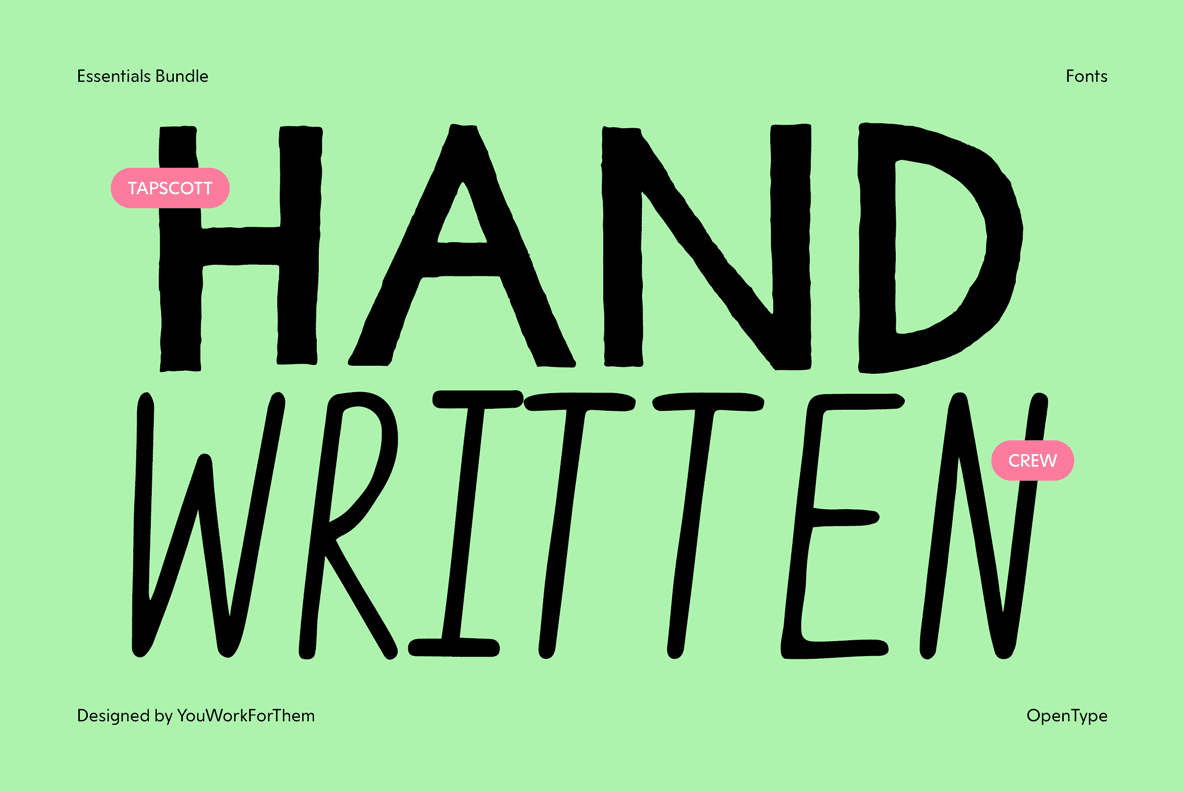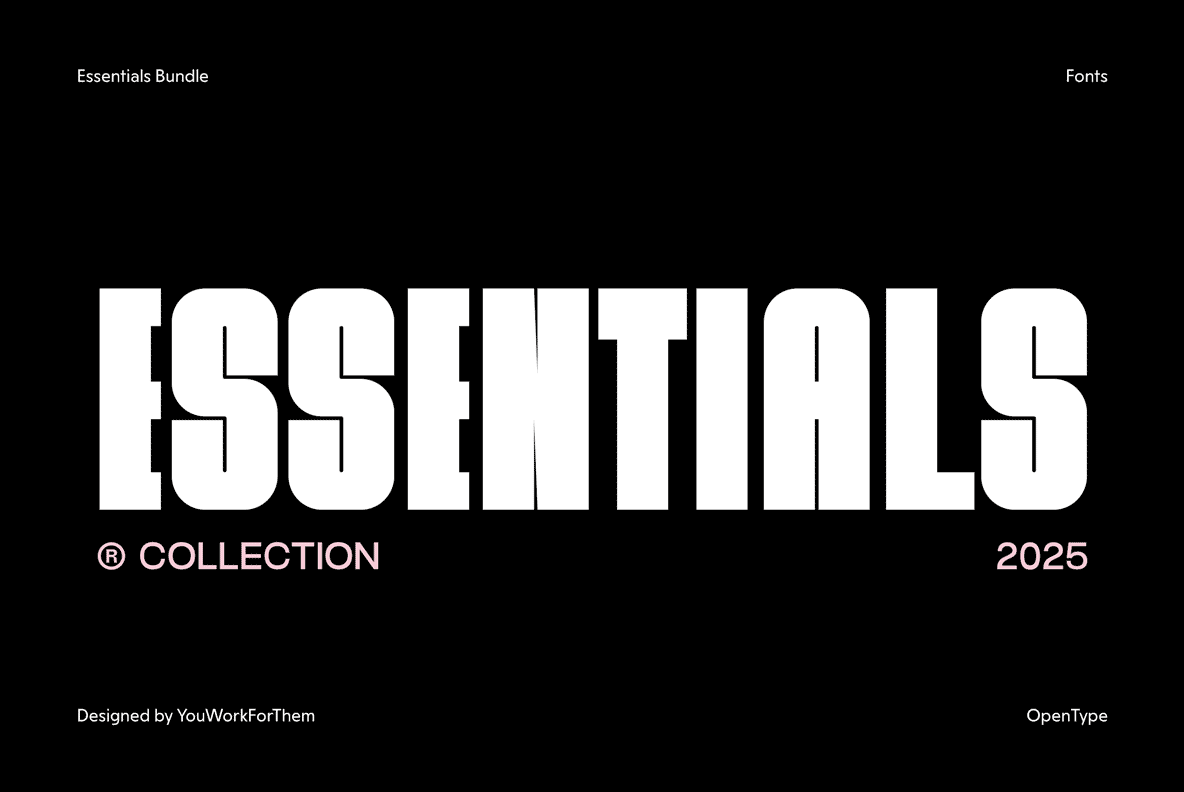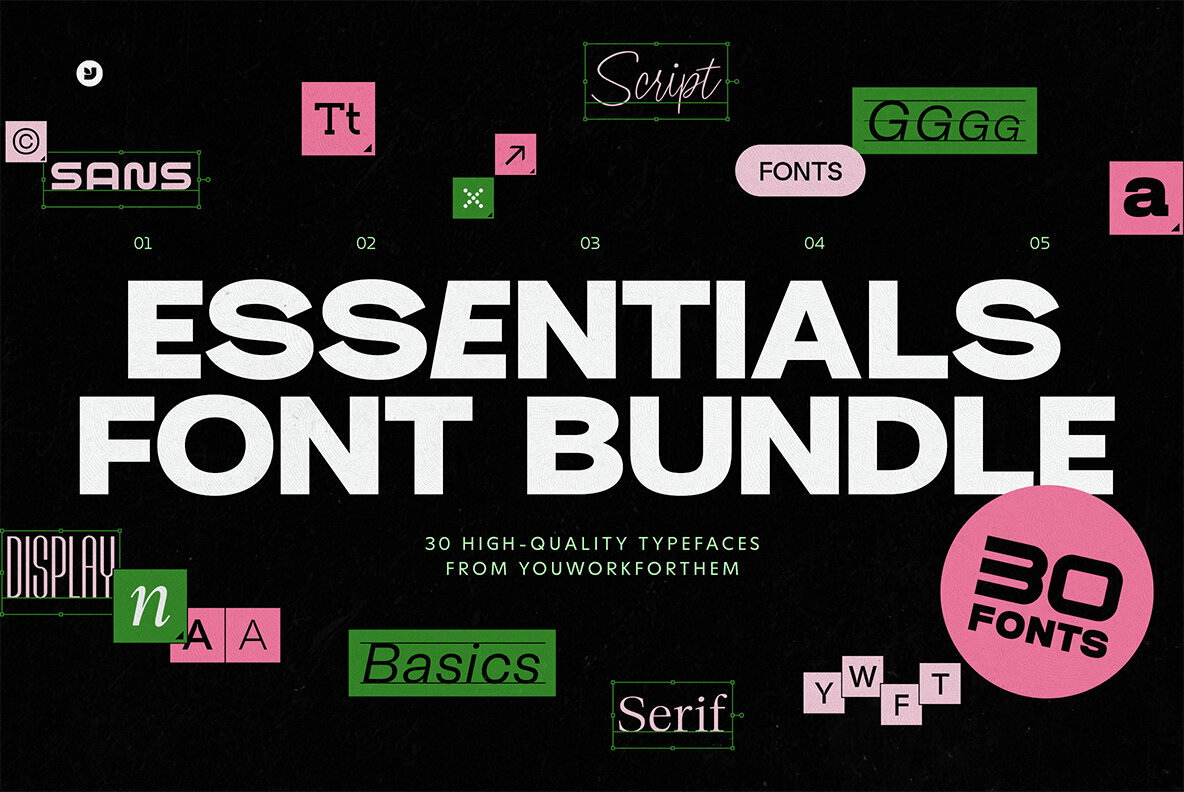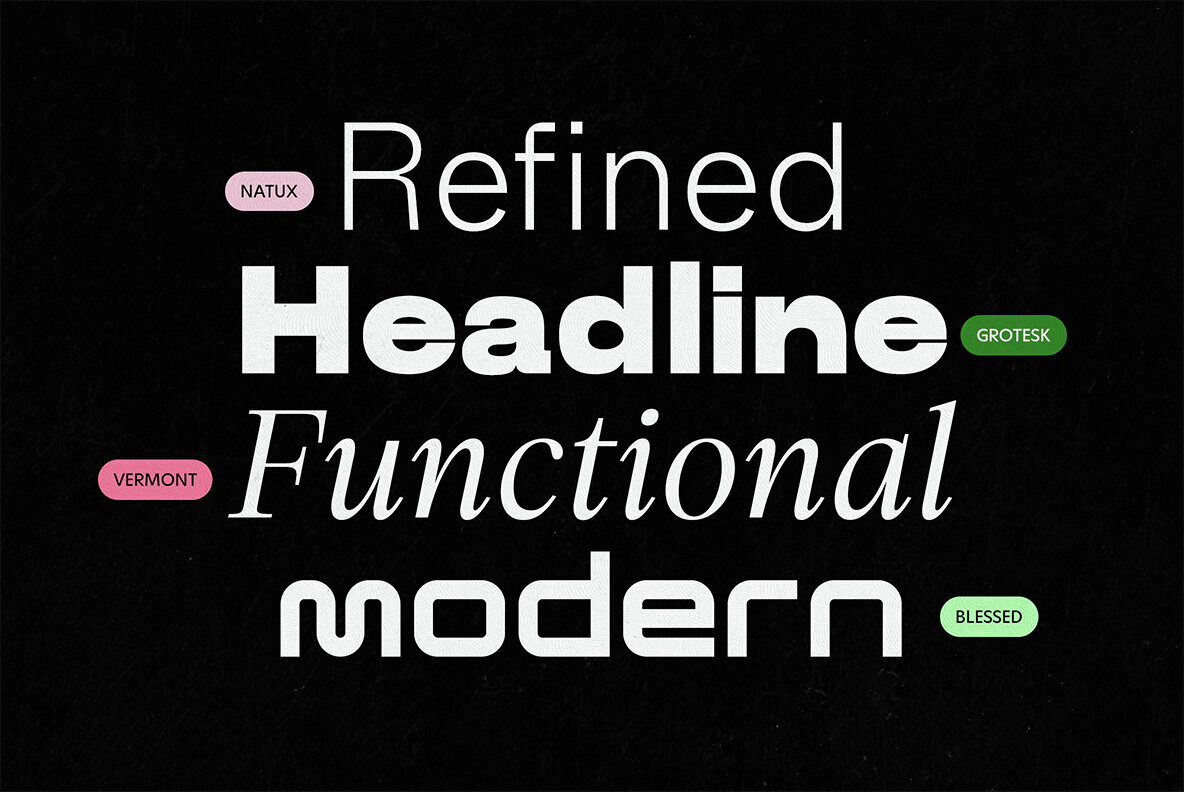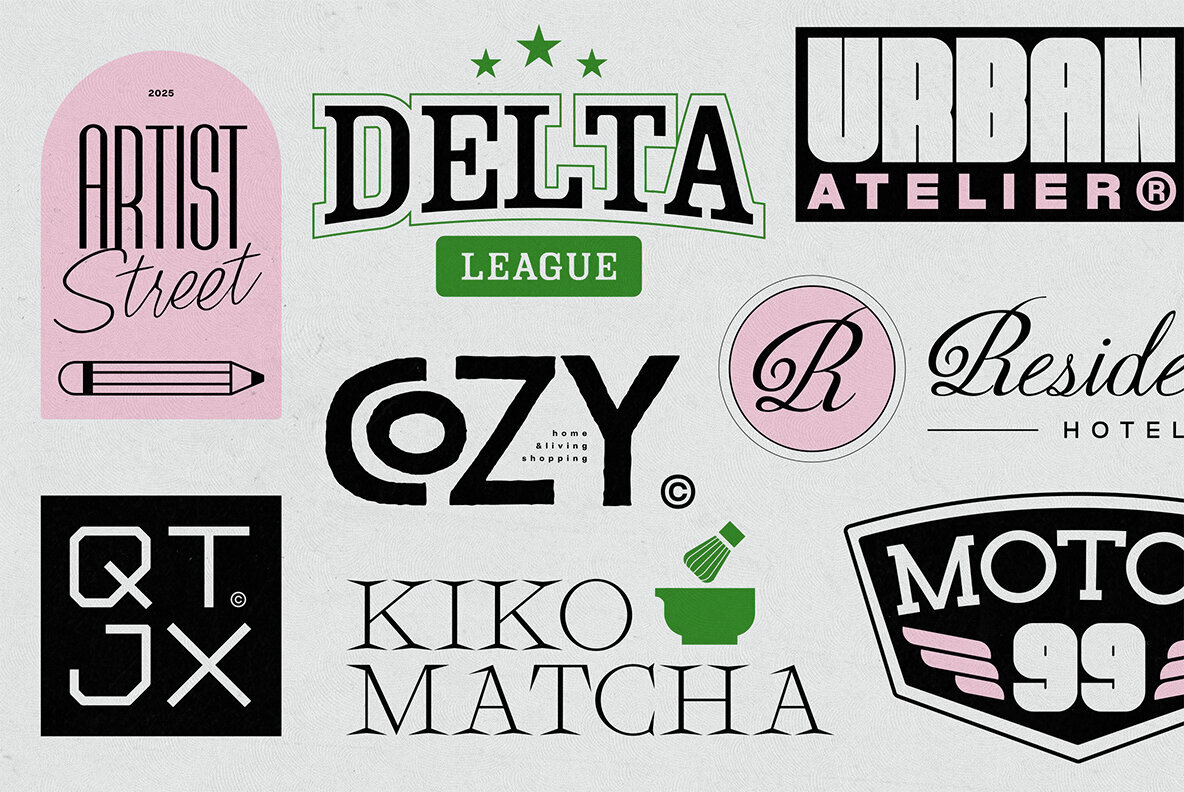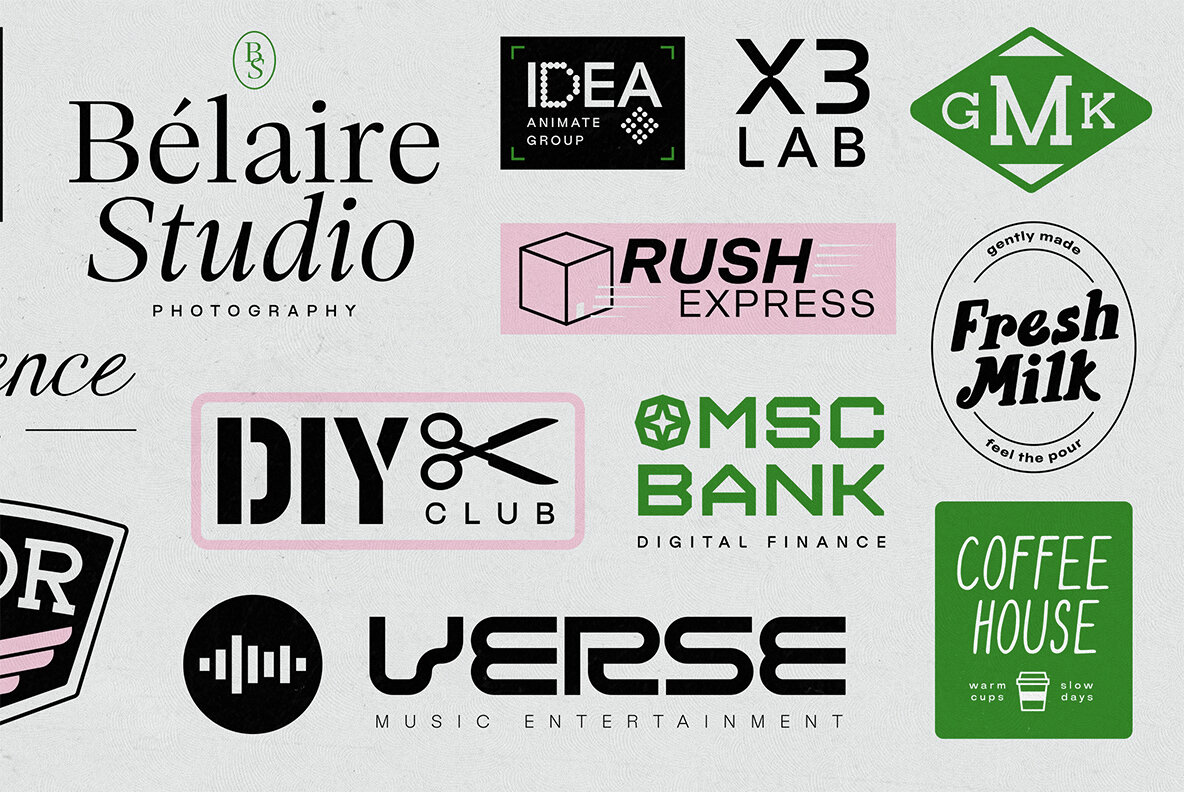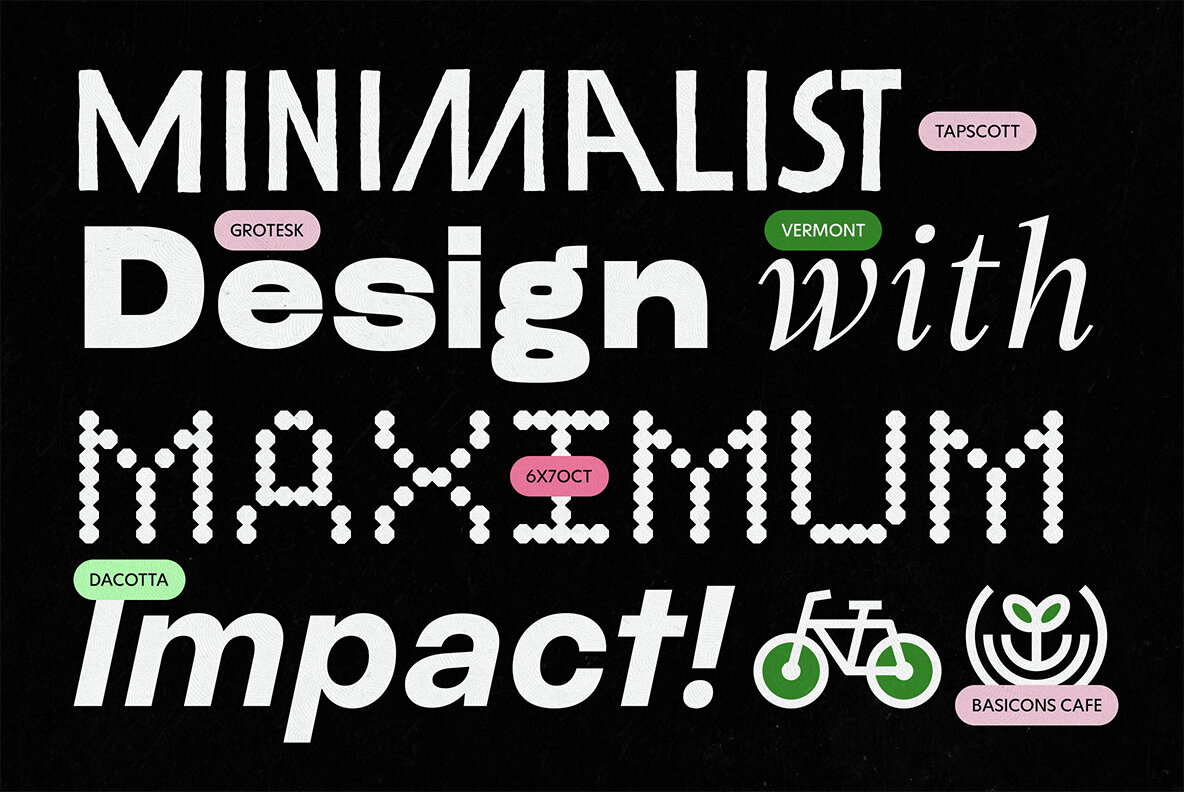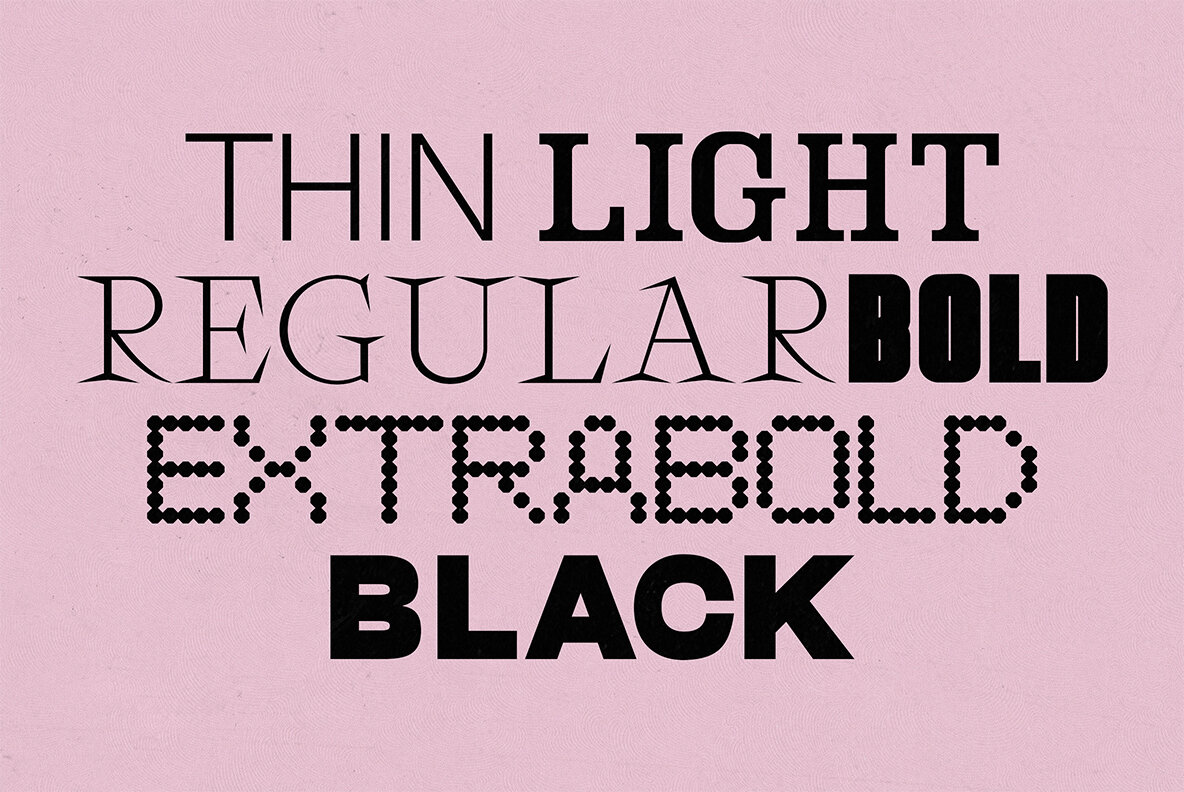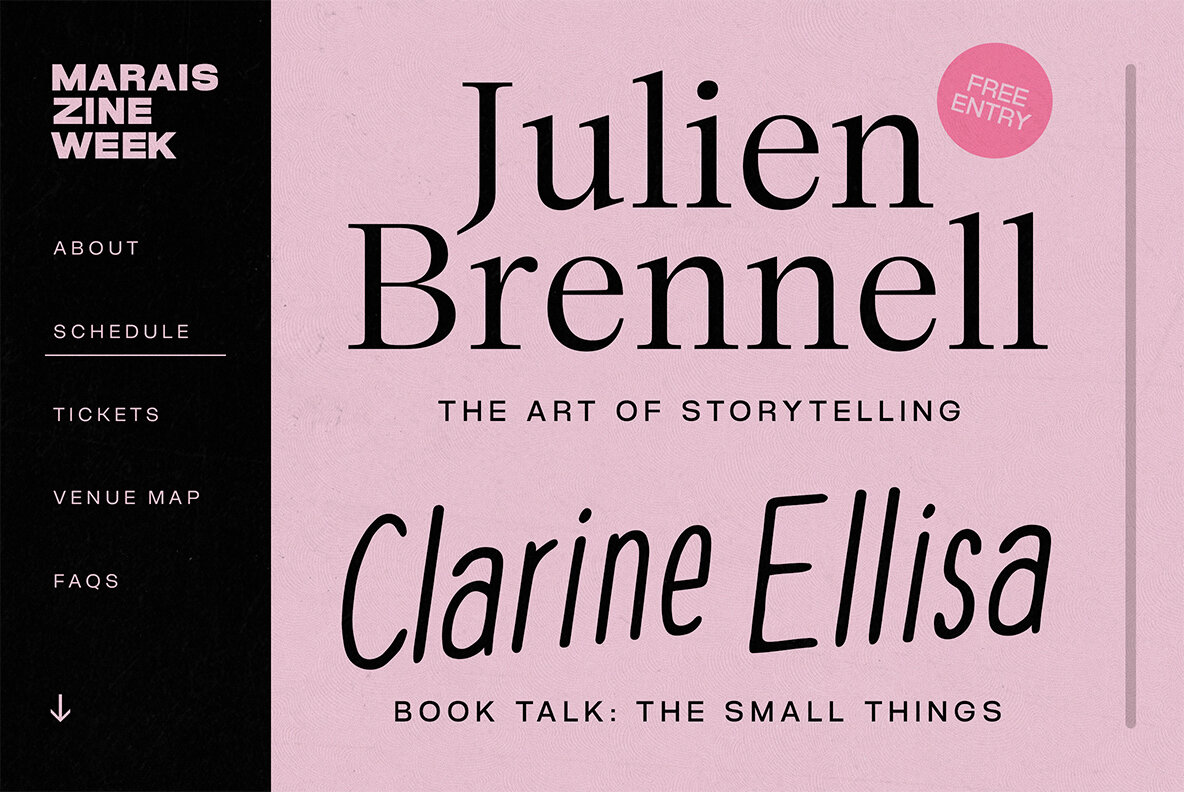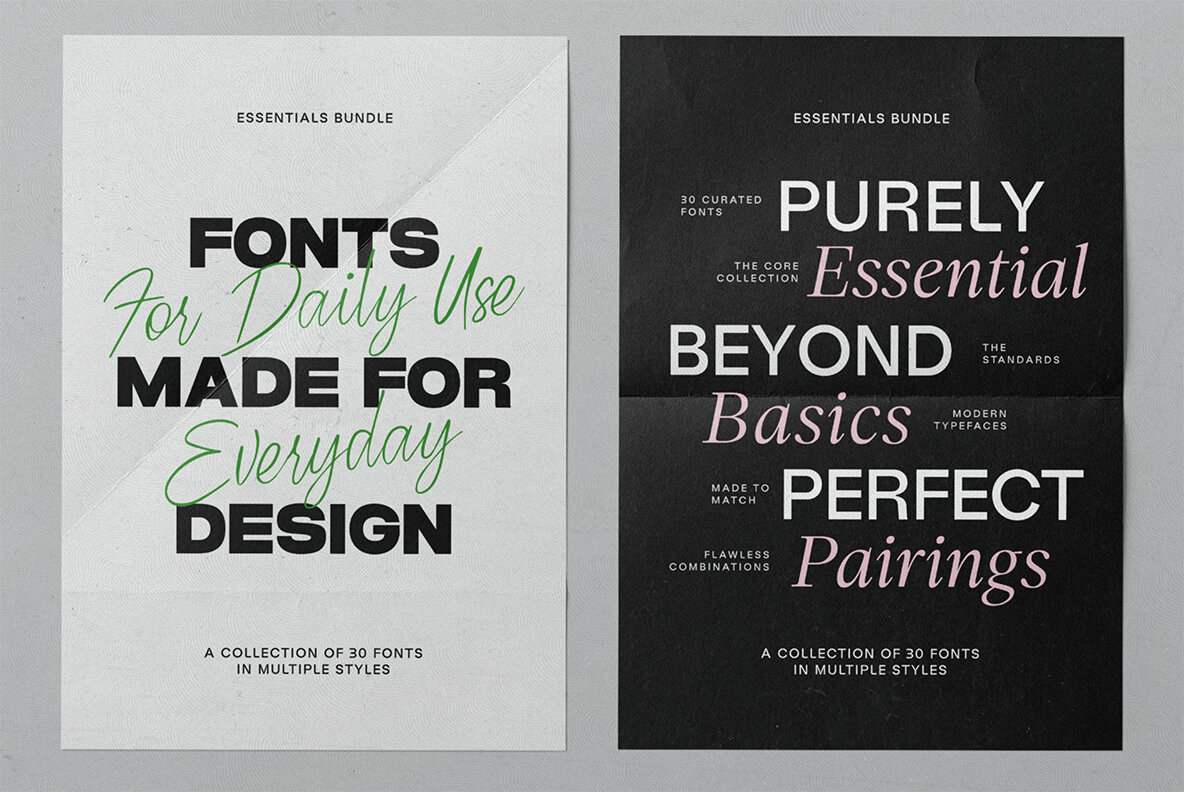
The Essentials Font Bundle
Discover a curated collection with the Essentials Font Bundle, exclusively from YouWorkForThem. This unique assemblage, formed by years of distinctive design work, embodies a diverse selection of 30 typefaces. Drawing from serif, sans serif, script, and other styles, each choice is steeped in character, offering a comprehensive toolkit for varied design projects. This bundle resembles a tasting flight, offering singular experiences from notable font families to create a versatile design arsenal. Featuring 30 OpenType fonts, usable on both Mac and Windows, these highlights showcase its diversity: Choose from three configurations: Acquiring the complete family offers a 75% discount, saving $475. Ideal for studios or freelancers managing varied client projects, it supplies essential typefaces within a budget. With two decades of offering resources to leading brands—Apple, Amazon, BMW, Delta Airlines, and Nike—YouWorkForThem presents the Essentials Font Bundle, promising top-tier typefaces: This collection does not comprise demos or throwaways—instead, these styles originate from YWFT's prestigious catalog, making this bundle an extraordinary opportunity to obtain them affordably. Mixing beloved classics, unique scripts, and reliable sans serifs, the Essentials Font Bundle serves as both an initiatory tool and a valuable asset for any designer's repertoire.The Essentials Font Bundle: Exclusive Offer